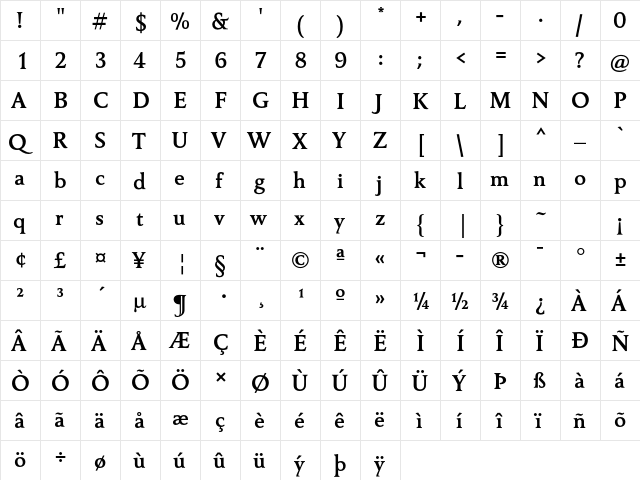
Carre Noir Std Bold
Design Context for Carre Noir Std Typeface
Carre Noir Std takes a measured approach to typography — its balanced proportions and neutral character make it a reliable workhorse for both digital and print work. Its bold stroke weight gives it real presence on the page.